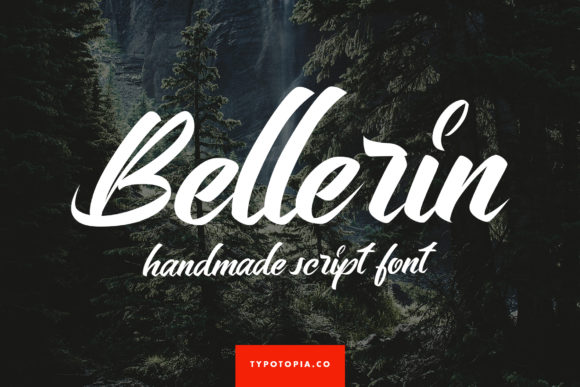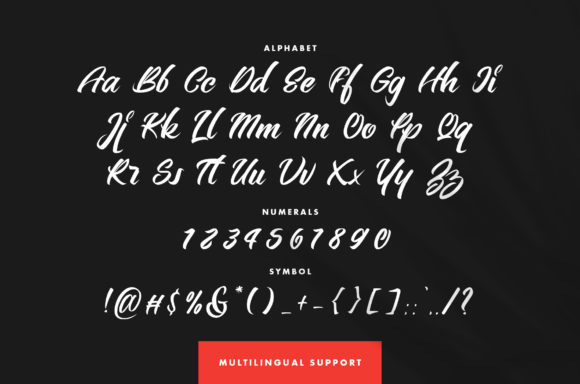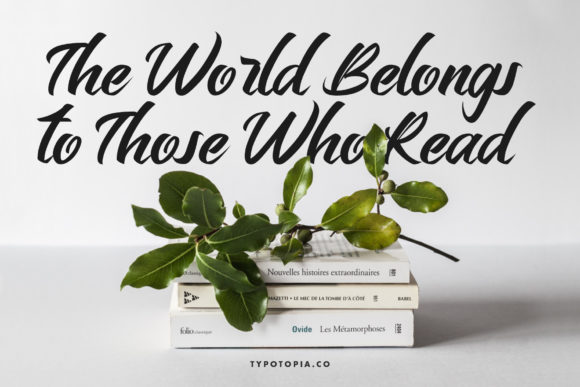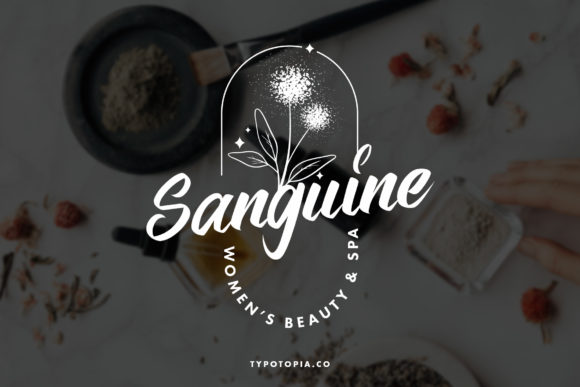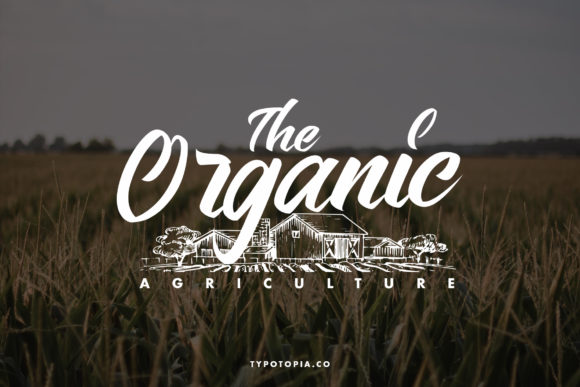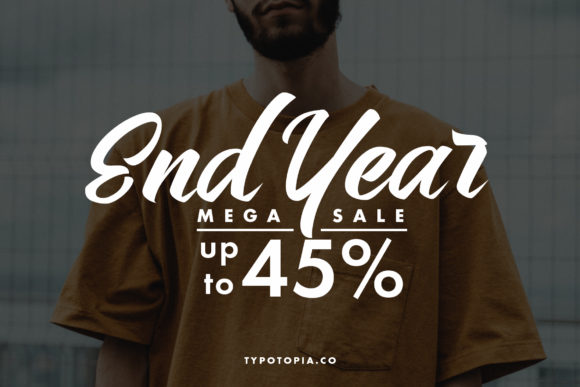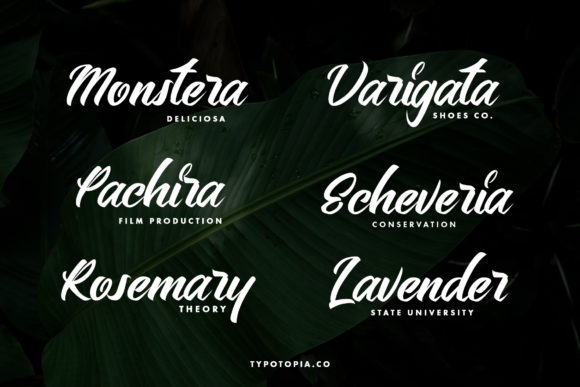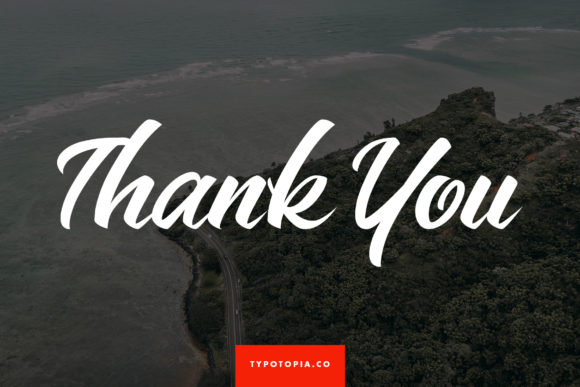
Bellerin Font
About Bellerin Font
Bellerin is a modern script font, created with the help of a paint brush. No matter the topic, this font will be an incredibly asset to your fonts’ library, as it has the potential to elevate any creation.